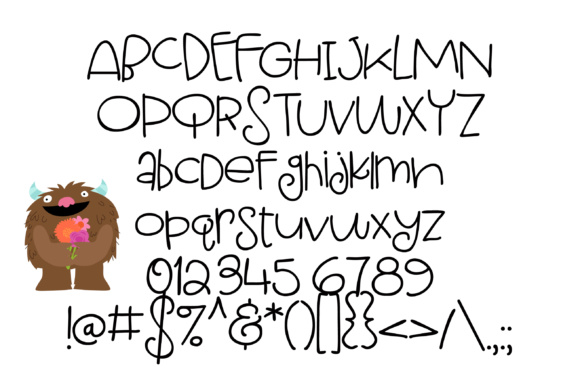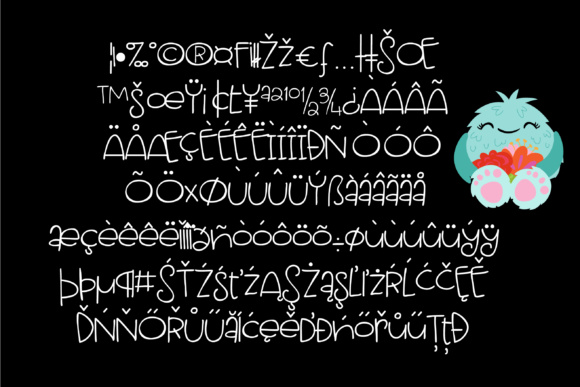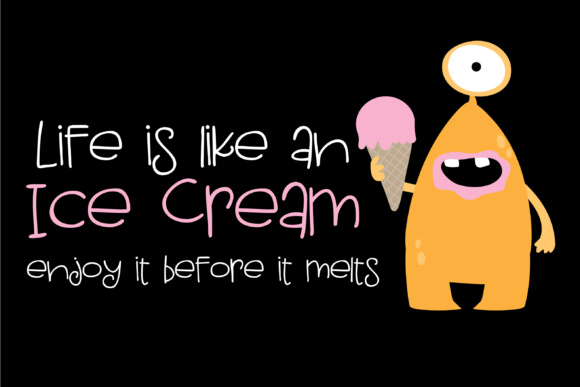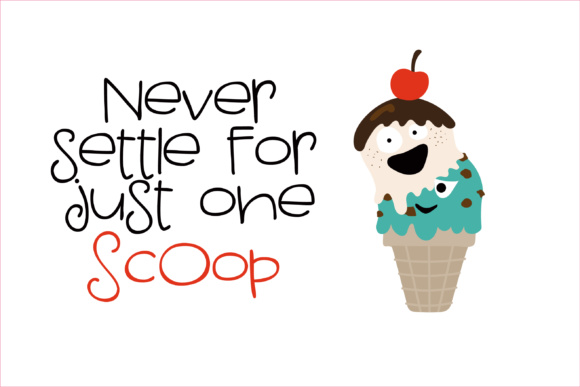
HomeScript FontsOogety Hand Font Script Fonts Oogety Hand Font FacebookXPinterestWhatsApp Oogety Hand Font Poster 2 Oogety Hand Font Poster 3 Oogety Hand Font Poster 4 Oogety Hand Font Poster 5 About Oogety Hand Font This adorable hand-written font has a definite upper and lower case but look just as cute when you mix cases up. DOWNLOAD ON CREATIVE FABRICAThis font is sold and delivered by Creative Fabrica. Font Canyon may earn a commission if you buy through this link. People also explored Play Elephant Font Bilberry Muffin Font Fuiraqui Lovers in Memories Font Pandawa Font Happiness Font Pumpkin Night Font Monogram Love Frame Font Sublime Font 292 0 TagsOogety Hand Font Previous articleLarispol FontNext articleNewfangled Font LEAVE A REPLY Cancel reply Comment: Please enter your comment! Name:* Please enter your name here Email:* You have entered an incorrect email address! Please enter your email address here Website: Save my name, email, and website in this browser for the next time I comment. Personal Use Free Heart Personal Use Free Read more about this font Tide Personal Use Free Read more about this font Special Day Personal Use Free Read more about this font Black Jalal Personal Use Free Read more about this font BLOG Transform Your Website: Elevate Your Typography with 7 Best Web Font Generators Are you ready to transform your website's typography from ordinary to extraordinary? Great! Today, we're diving into the world of web font generators, which... Fonts That Capture the Spirit of New York City Elegant Wedding Invitation Fonts – Handwritten & Script Fonts Best Fonts for T-Shirt Design – Top 2025 Picks